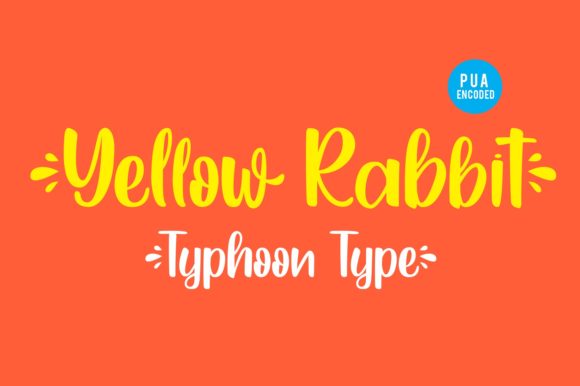
Yellow Rabbit Font
Yellow Rabbit is a cute and casual handwritten font with an incredibly friendly feel. It’s perfect for logos, branding, social media posts, greeting cards and much more!